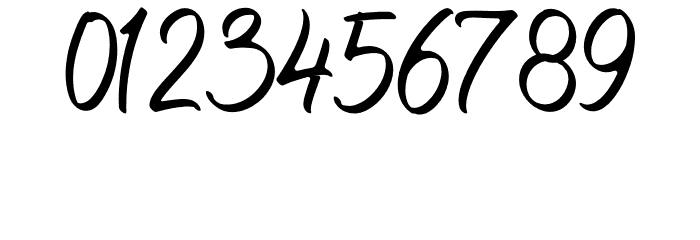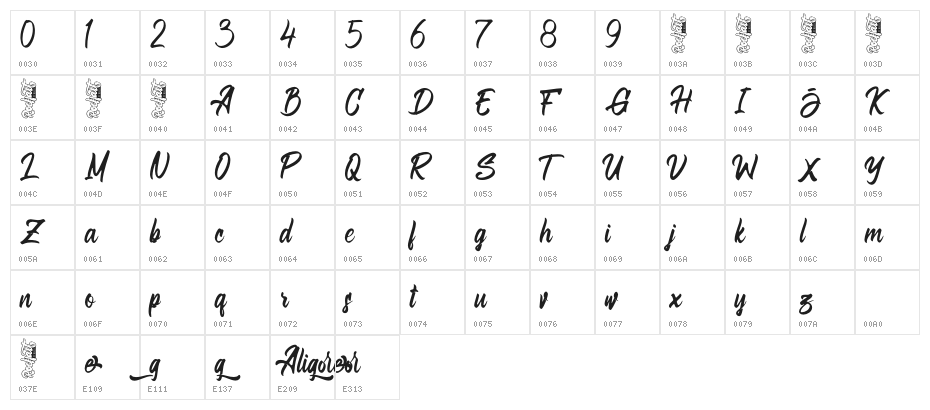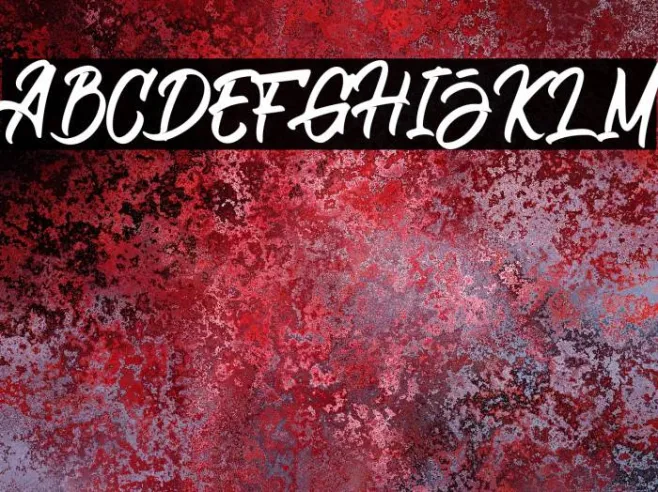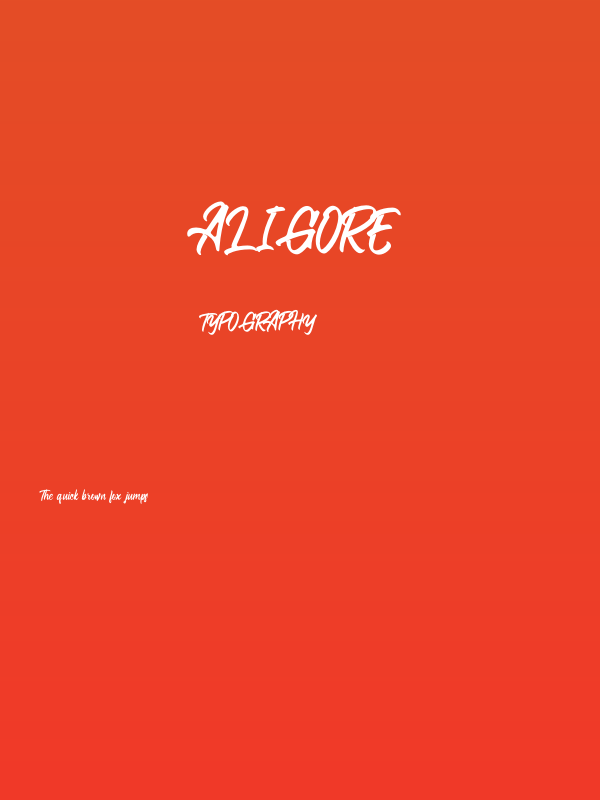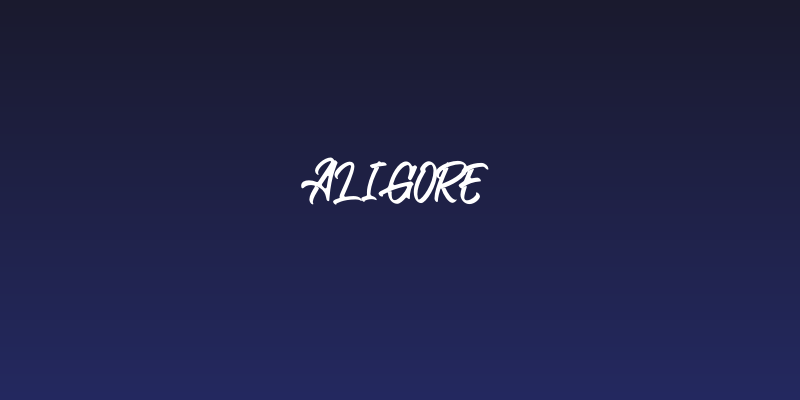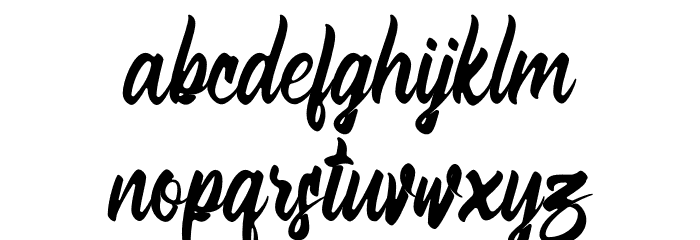
Aligore Font
Aligore Description
This font features a dynamic and expressive script style, characterized by its flowing, cursive letterforms. The strokes are bold and confident, with a slight slant that adds a sense of movement and elegance. The uppercase letters are particularly striking, with intricate loops and flourishes that give them a decorative flair. The lowercase letters maintain a consistent style, with smooth connections between characters, enhancing readability while preserving the font's artistic quality. The numerals are equally stylish, with a uniform height and a playful touch. Overall, this font exudes a sense of creativity and sophistication, making it ideal for projects that require a personal and artistic touch.
| Proposed Projects | Ideal for wedding invitations, greeting cards, branding projects, and artistic posters. |